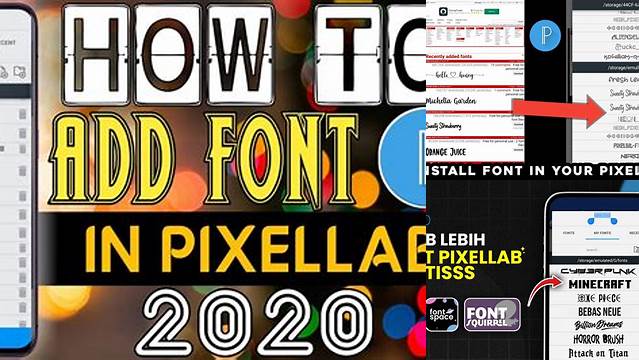
Download Fonts For PixelLab: Your Free Guide
Hey guys! Are you looking to spice up your designs in PixelLab? You've come to the right place! This comprehensive guide will walk you through everything you need to know about downloading fonts for PixelLab for free. From finding the perfect font to installing it and using it in your projects, we've got you covered. Let's dive in and unlock a world of creative possibilities!
Understanding the Importance of Fonts in PixelLab
Fonts, guys, they are not just characters on a screen; they are the voice of your design! In PixelLab, the right font can transform a simple image into a captivating masterpiece. It’s the secret sauce that conveys your message, evokes emotions, and grabs the attention of your audience. Think about it: a bold, strong font for a tech startup, a playful, handwritten font for a children's product, or an elegant serif font for a luxury brand. Each font tells a unique story, and PixelLab gives you the platform to be the storyteller. The choice of font is crucial. It can make or break your design. It can communicate professionalism, fun, sophistication, or simplicity. A well-chosen font complements your visuals and enhances the overall impact of your design. Without the right fonts, your designs can feel generic, bland, and fail to connect with your audience. That's why knowing how to download font Pixellab free is a game-changer. You're not just adding text; you're adding personality, style, and a whole lot of flair. When you master font selection, you take your designs to a whole new level. Understanding this importance will make you want to learn how to download font Pixellab free.
PixelLab offers a great selection of built-in fonts, but they can be limited. That’s where the magic of custom fonts comes in. By downloading and installing new fonts, you expand your creative horizons. You can find fonts that match your brand, the vibe of your project, or simply your personal taste. You can create unique designs that stand out from the crowd. This guide helps you understand how to find the font, download font Pixellab free, and incorporate it into your work. The ability to add fonts allows you to create unique designs, and this is only possible if you know how to download them and install them in PixelLab. You will be able to show your own style, make something unique, and show off your designs. Keep going with the guide to learn about font selection and downloading your favorite fonts.
Where to Find Free Fonts for PixelLab
First up, we have Google Fonts. This is a fantastic resource, offering a massive library of fonts, all free to use. The fonts are high-quality and designed to work well on all devices. Google Fonts is a great place to start, because it is safe and reliable. You don't need to worry about viruses or malware. Next, you can explore websites such as DaFont. DaFont boasts a vast collection of fonts, organized by category, so you can easily find the perfect font for your needs. Just be careful to check the licensing details on each font before you download it. Another great option is Font Squirrel. Font Squirrel is known for its high-quality fonts, many of which are free for commercial use. The website also provides a font identifier tool, which is super useful if you find a font you like in an image but don’t know its name. Last, but not least, check out 1001 Fonts. 1001 Fonts offers a huge selection of fonts, including both free and premium options. Make sure to filter your search to include only the free fonts. When you find the perfect font you want to download font Pixellab free, make sure you have the right license for the job. These are some of the best and safest options to find the fonts you want and need.
When you are browsing these sites, remember to look for fonts that suit your design style and the message you want to convey. Take the time to preview fonts, and try them out in PixelLab to make sure they fit your projects. Happy font hunting, and enjoy exploring these fantastic resources. With these resources, you can start to download font Pixellab free and enhance your designs.
Google Fonts: Your Go-To Resource
Google Fonts is a fantastic starting point for anyone looking to download font Pixellab free. It's a vast library of open-source fonts that you can use for both personal and commercial projects. The best part? It’s completely free! This is a huge win for creators of all levels. Google Fonts offers a wide range of fonts. You'll find everything from clean and modern sans-serifs to classic and elegant serifs and fun, quirky display fonts. No matter what kind of project you’re working on, you’re sure to find something that fits your needs. The fonts are organized by category, making it easy to narrow down your search. You can filter by the font's style, thickness, and even the languages it supports. This makes it super easy to find the perfect font for your project. Every font on Google Fonts is designed to work across all devices, including phones, tablets, and computers. This means that your designs will look great, no matter where your audience views them. Google Fonts is also a safe and reliable source. You don't have to worry about downloading files that contain malware or viruses. The website is easy to navigate. You can browse the fonts and preview them directly on the website, making it easy to see how they'll look in your designs. Google Fonts provides a reliable, easy-to-use, and free resource for designers of all levels. When you download font Pixellab free from Google Fonts, you are using a trusted and safe service, ensuring that your designs will be high-quality and visually appealing.
DaFont: Exploring a Vast Font Collection
DaFont is a popular destination for those who want to download font Pixellab free. This site boasts a massive collection of fonts, categorized in various ways, making it easy to find something that fits your project's needs. You can browse by theme, style, or even the designer's name. This variety is a major advantage. Whether you're looking for a classic serif font, a modern sans-serif, or a unique display font, DaFont has something for you. The site is regularly updated with new fonts. This ensures that you always have access to fresh and exciting design options. However, it is essential to pay attention to the licensing of each font you consider. While many fonts on DaFont are free for personal use, some may require a license for commercial projects. Before using a font for your business, always carefully review the license details. DaFont allows you to preview fonts before downloading them. This helps you to see how the font will look in your design. You can try typing in your text and seeing how it appears in different sizes and styles. This feature is really helpful in deciding if a font suits your needs. The site is user-friendly, making it easy to search and download fonts. Although DaFont is a useful resource, it is vital to be cautious about licensing. Always check the terms of use. Ensure that the font aligns with your project's purpose. The wealth of options at DaFont can be a valuable tool for those looking to download font Pixellab free, as long as you use the site responsibly.
Font Squirrel: High-Quality Fonts and Licensing
Font Squirrel is another excellent option to download font Pixellab free. It is known for its curated collection of high-quality fonts, many of which are free for commercial use. The platform’s focus is on ensuring both quality and usability. This makes it a great choice for professional designers and hobbyists alike. Font Squirrel doesn't just offer fonts; it also provides a font identifier tool, which is incredibly useful if you come across a font in an image and want to identify it. This tool is a huge time-saver. It allows you to quickly find similar fonts, saving you from endless searching. Font Squirrel is committed to providing fonts with clear licensing information. You can be sure that the fonts you download font Pixellab free from this site are suitable for your needs. Whether for personal or commercial use, the licensing details are made clear, so you can use the fonts without legal issues. The website has a simple and easy-to-navigate layout. This helps you find the fonts you want quickly. Font Squirrel also provides a preview option, allowing you to test the font before downloading it. This ensures the font fits your project. The fonts on Font Squirrel are carefully selected. This guarantees that you will only find high-quality options. Font Squirrel also has a selection of special font packs. These packs are collections of fonts designed to work together. This feature is helpful to create visually cohesive designs. These features make Font Squirrel a standout resource. If you are looking to download font Pixellab free and want to ensure quality and clear licensing, Font Squirrel is the place to be.
1001 Fonts: A Diverse Selection of Fonts
1001 Fonts offers a diverse and extensive collection of fonts. It's an excellent place to start your search when you want to download font Pixellab free. With a massive library, you're likely to find the perfect font for any project. Whether you are looking for something modern, classic, or a unique display font, 1001 Fonts provides a wide variety of options. The platform offers both free and premium fonts, so it's important to filter your search. This ensures you find options that fit your budget. The site's search tools let you easily browse fonts by style, category, or even the designer. This makes it simple to narrow down your choices and discover the fonts you need. The platform features detailed font previews. This allows you to test the font with your text and see how it appears in different sizes and styles. This feature is super helpful to make sure a font fits your design. When you are browsing, you will be able to find various fonts. When you download font Pixellab free, make sure to check the licensing details before using the font for any project. This will protect you from potential legal issues. Although 1001 Fonts has a vast collection, it's important to review the licensing terms. Ensure that the font aligns with your project's purpose. 1001 Fonts is a valuable resource for designers. It offers a broad range of options for your design needs.
Conclusion: Unleash Your Creativity with Free PixelLab Fonts
Well, there you have it, guys! You've got everything you need to download font Pixellab free, install them, and start creating amazing designs. We’ve covered everything from finding the perfect font, to making sure it fits your project. With the right fonts, you can turn your design ideas into reality. Remember to check the licensing terms and respect copyright laws. Never stop learning, keep experimenting, and most of all, have fun. Happy designing, and don’t forget to explore the amazing world of fonts available. Go out there and create something beautiful! Go out there and use the download font Pixellab free fonts, and show off your creativity and talent.